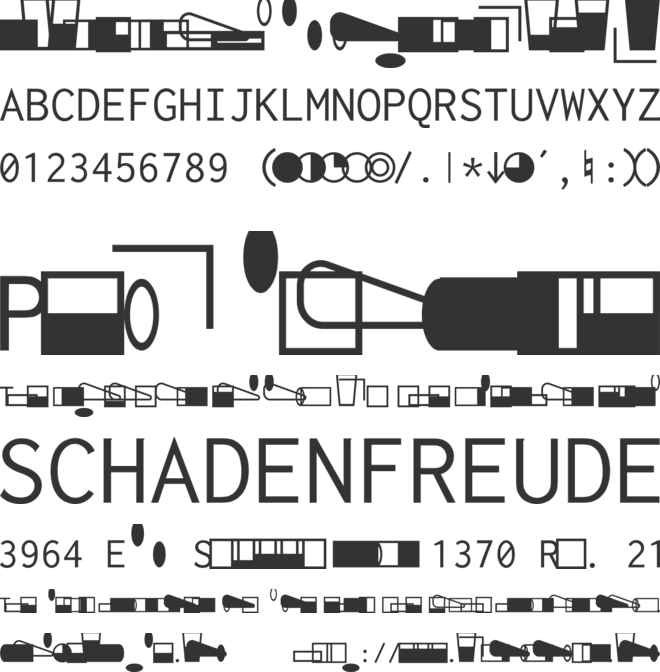
Glyph3 Woodwinds Font Family
Based on 'Inconsolata' and 'Bravura', both SIL Open Font licenced fonts, 'Glyph3 Woodwinds' was designed to allow music editors and composers to create woodwind instruments fingering schemes. Since it is an True Type Font it can be used on any operating system and music engraving software. Glyph3 Woodwinds aims to bring a solution on the graphic representation of certain techniques on flutes, clarinets, saxophones, bassoons, oboe and english horn. This font can be modified and distributed according to SIL Open Font specifications.
Basada en las fuentes "Inconsolata" y "Bravura", ambas con licencia SIL Open Font, "Glyph3 Woodwinds" es una fuente que contiene glifos diseñados para la resolución de digitaciones de instrumentos de viento-madera, para ser utilizada por editores musicales y compositores en cualquier sistema operativo y aplicación de notación musical. La misma fue desarrollada con el objetivo de dar respuesta a los requerimientos de alumnos, profesores y profesionales de la música que necesiten representar gráficamente digitaciones y técnicas específicas de instrumentos de viento, particularmente flautas, clarinetes, saxofones, oboe, corno inglés y fagot. Esta fuente puede ser distribuida y modificada según las atribuciones de la licencia SIL Open Font.